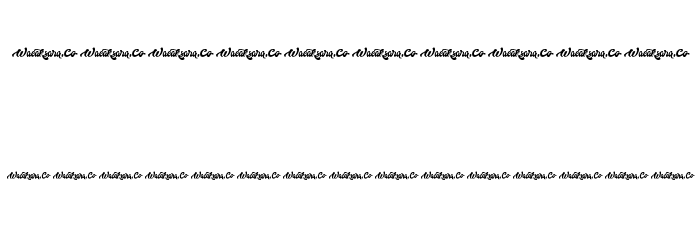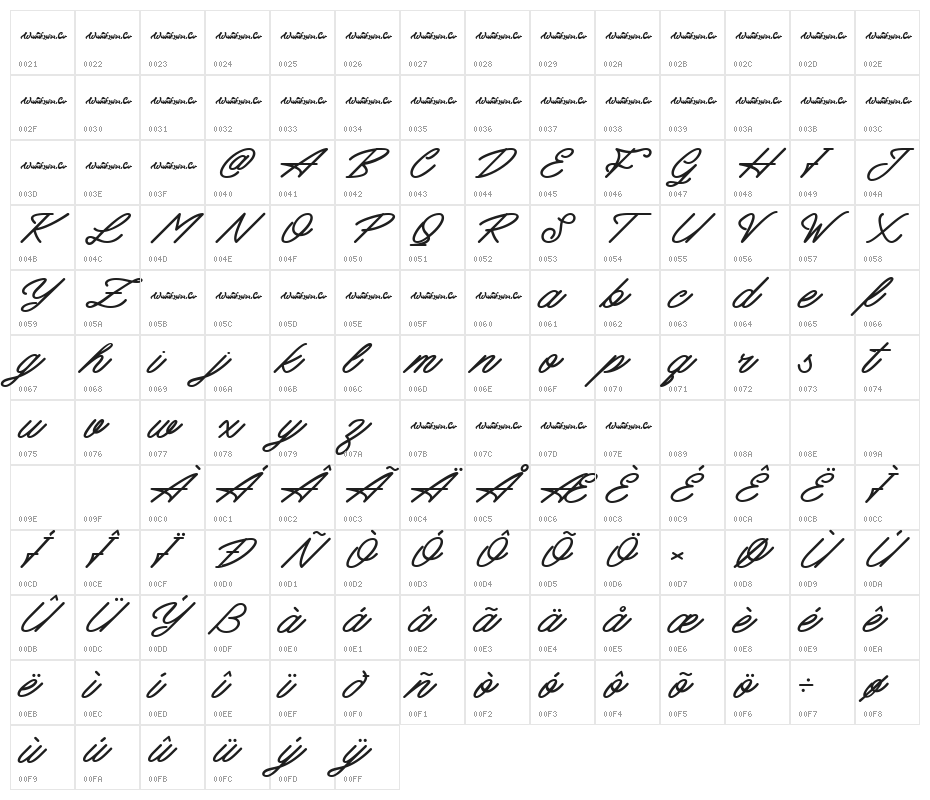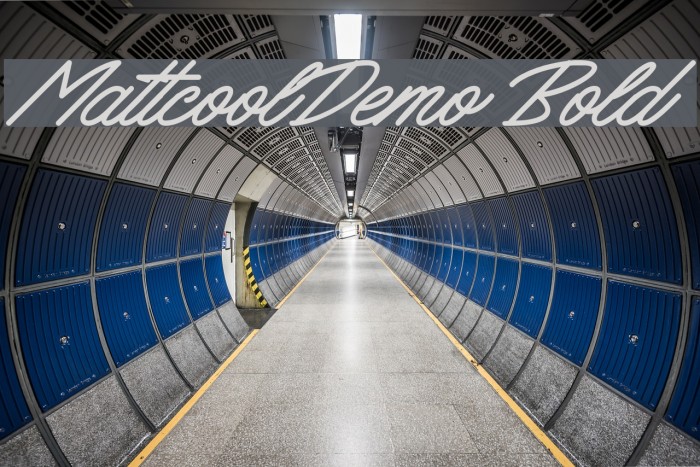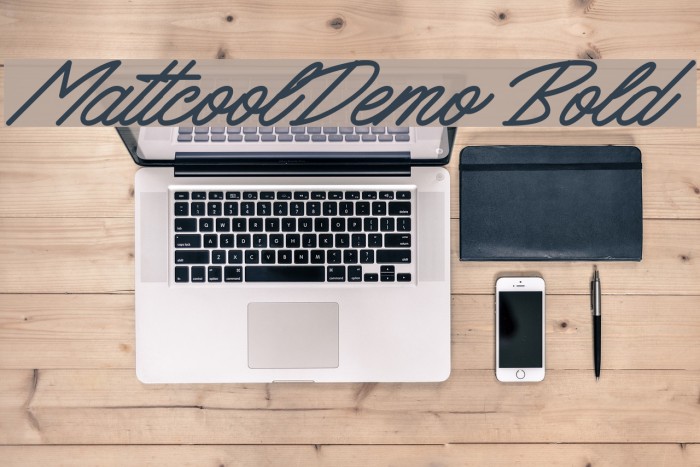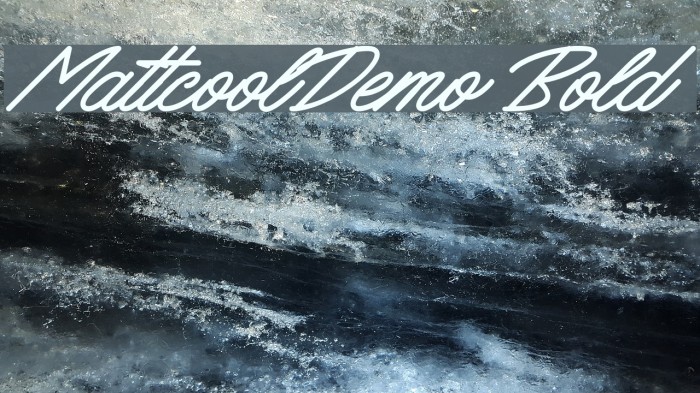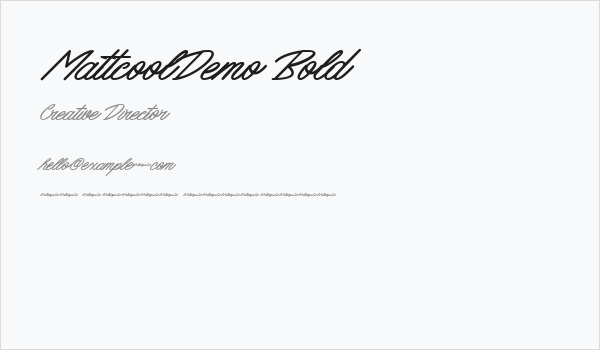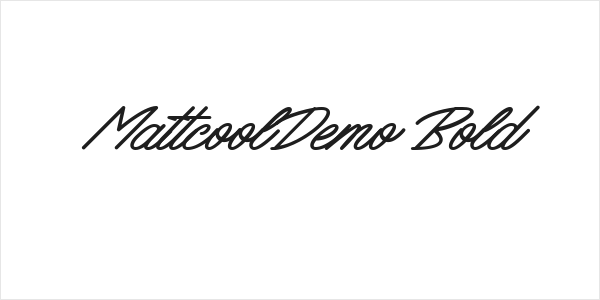
MattcoolDemo Bold Font
MattcoolDemo Bold Description
This font features a bold, cursive style with a flowing, handwritten appearance. The letters are connected, creating a seamless and elegant script. The uppercase letters are slightly larger and more pronounced, while the lowercase letters maintain a consistent flow. The strokes are thick, providing a strong visual impact, and the overall design exudes a sense of sophistication and elegance. The font is well-suited for projects that require a personal touch or a classic, stylish look.